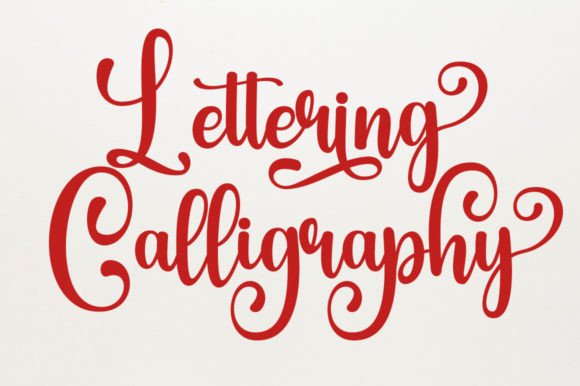
Introducing Charistina Font: A Modern Calligraphy Design for Creative Projects
Are you looking for a beautiful and versatile font to elevate your creative projects? Look no further than Charistina Font, a modern calligraphy design that is perfect for a wide range of applications. In this article, we’ll take a closer look at the features and benefits of Charistina script, and explore how it can be used to add a touch of elegance and sophistication to your designs.
What is Charistina Font?
Charistina script is a modern calligraphy design that includes a regular font with swashes. This casual and beautiful font is perfect for creating stunning visual content, from logos and product packaging to wedding invitations and branding materials. With its elegant and flowing lines, Charistina script is sure to add a touch of sophistication to any design.
Endless Creative Possibilities
One of the best things about Charistina script is its versatility. This font can be used for a wide range of creative projects, including:
- Logos and branding materials
- Product packaging and labels
- Wedding invitations and stationery
- Headlines and signage
- Book covers and posters
- Quotes and social media graphics
Whether you’re a designer, artist, or simply a creative enthusiast, Charistina script is the perfect font to add a touch of elegance and sophistication to your projects.
OpenType Language Styling Changes and International Support
Charistina script also includes OpenType language styling changes, bindings, and international support for most Western languages. This means that you can use this font to create stunning visual content for a global audience.
The Benefits of Using Charistina Script
So why choose Charistina script for your creative projects? Here are just a few benefits of using this beautiful font:
- Elegance and sophistication: Charistina script adds a touch of elegance and sophistication to any design, making it perfect for high-end branding and marketing materials.
- Versatility: This font can be used for a wide range of creative projects, from logos and product packaging to wedding invitations and social media graphics.
- International support: With OpenType language styling changes and international support for most Western languages, Charistina script is perfect for creating visual content for a global audience.
Tips and Tricks for Using Charistina Script
Here are a few tips and tricks for getting the most out of Charistina script:
- Experiment with swashes: Charistina script includes beautiful swashes that can add a touch of elegance and sophistication to your designs. Experiment with different swash styles to find the one that works best for your project.
- Use it for headlines and titles: Charistina script is perfect for headlines and titles, adding a touch of elegance and sophistication to any design.
- Pair it with other fonts: Charistina script can be paired with other fonts to create a unique and visually appealing design. Experiment with different font combinations to find the one that works best for your project.
In conclusion, Charistina script is a beautiful and versatile font that is perfect for a wide range of creative projects. With its elegant and flowing lines, OpenType language styling changes, and international support for most Western languages, this font is sure to add a touch of sophistication and elegance to any design.